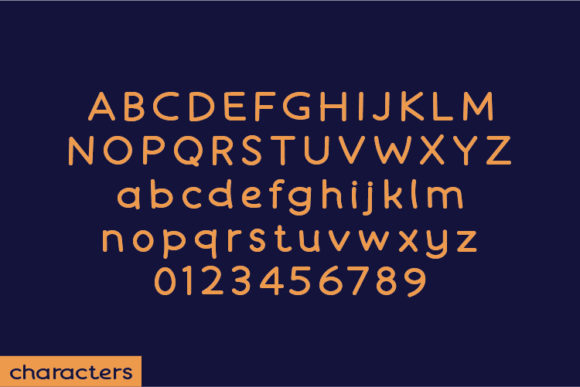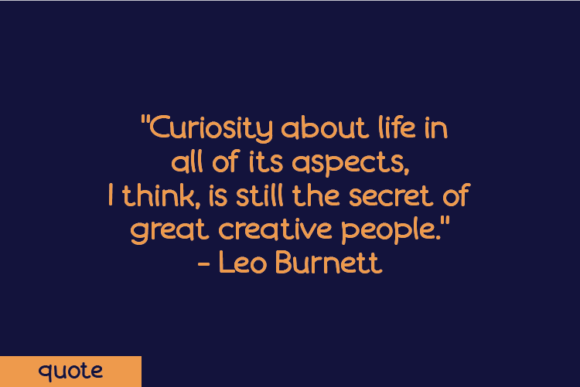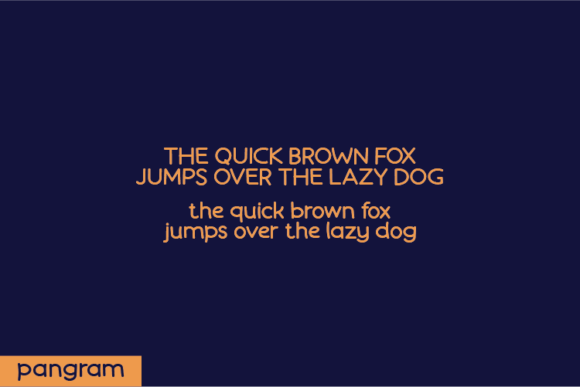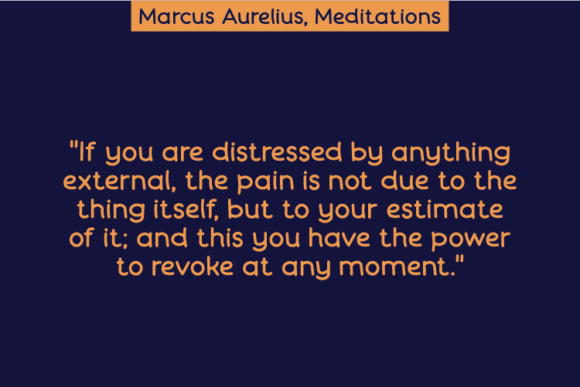
Multicolored Font
About Multicolored Font
The Multicolored Font Download is a natural handwritten typeface created to capture the beauty of authentic lettering. Unlike fonts that are heavily adjusted, Multicolored was designed without changing a single node in each character’s indentation. This method preserves its raw flow and gives every stroke an organic rhythm. The result is a font that feels handcrafted, personal, and unique.
Because of its authentic style, Multicolored balances charm with functionality. It looks casual yet professional, making it suitable for both personal and commercial projects. Whether you are working on quotes, notes, apparel, posters, invitations, or product packaging, this typeface adapts easily to bring originality and warmth to your designs.
Features of Multicolored Font
When you download the Multicolored Font, you’ll find features that make it versatile and easy to use:
• Authentic handwritten look with untouched nodes
• Natural strokes that maintain fluid movement
• Complete character set including uppercase, lowercase, numerals, and punctuation
• Readable yet artistic design suitable for different formats
• Flexibility for digital graphics, print media, and branding projects
Best Uses for Multicolored Font
The Multicolored Font Download is highly adaptable across many creative applications. For example, it is excellent for inspirational quotes shared on social media, giving them a personal and relatable tone. It also looks great on t-shirts, hoodies, and tote bags, where its natural look adds originality.
In addition, Multicolored enhances greeting cards, journals, planners, and invitations, where handwritten style brings warmth. It also performs well on product packaging and labels, especially for eco-friendly or handmade goods. Furthermore, it strengthens logos and branding projects, offering an authentic handcrafted identity. Finally, it works beautifully on posters, flyers, and event promotions, where authenticity helps designs stand out.
Why Choose Multicolored Font
Designers choose the Multicolored Font Download because it emphasizes originality and authenticity. By keeping every indentation intact, it maintains the raw essence of handwriting. This authenticity creates a stronger connection with audiences than highly polished fonts can provide.
Unlike many generic handwritten fonts, Multicolored balances creativity, clarity, and uniqueness. It is casual enough for personal use while polished enough for branding and professional applications. This adaptability makes it a reliable and essential addition to any design toolkit.
The Multicolored Font Download is a natural handwritten typeface that combines authentic strokes with versatile usability. With its organic rhythm and raw character design, it is perfect for quotes, apparel, posters, packaging, invitations, and more.